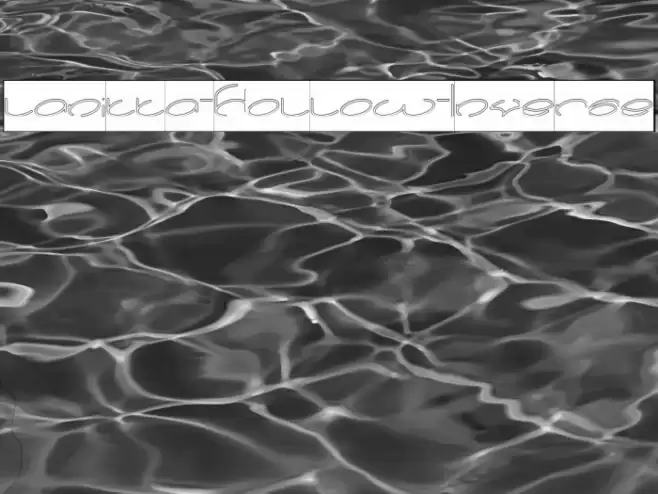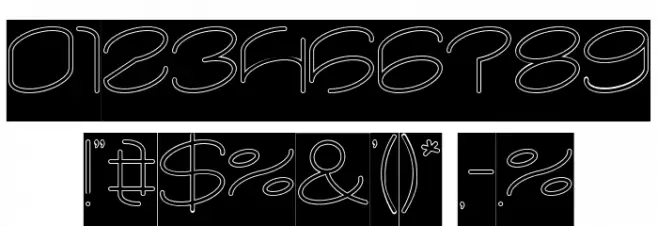
lanitta-Hollow-Inverse Font
lanitta-Hollow-Inverse Description
This font features a unique hollow design with an inverse style, creating a striking visual effect. The characters are outlined with a consistent stroke width, giving them a modern and futuristic appearance. The uppercase and lowercase letters maintain a uniform height, contributing to a cohesive look. The numerals and special characters follow the same design principles, ensuring consistency across all elements. The font's geometric shapes and smooth curves make it suitable for creative and artistic projects. Its distinct style is eye-catching and can be used to make a bold statement in any design.
A modern, hollow, inverse font with geometric shapes and smooth curves from Uncategorized fonts.
- Proposed Projects: Ideal for branding, posters, digital art, and futuristic designs.